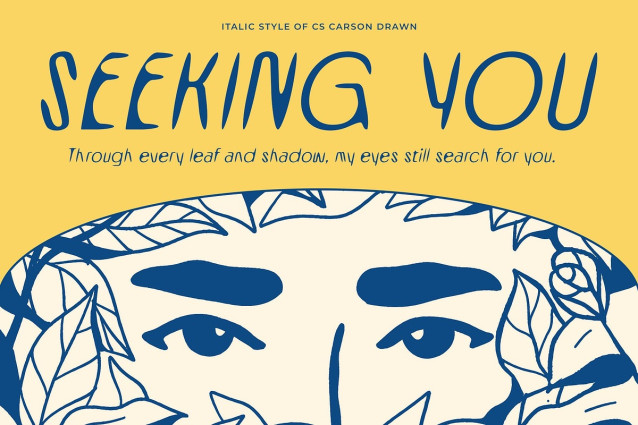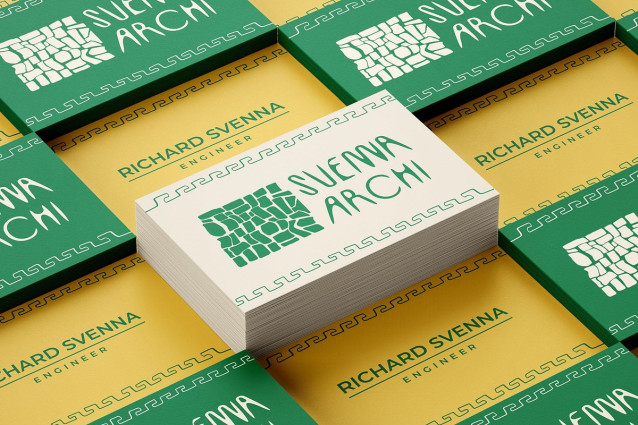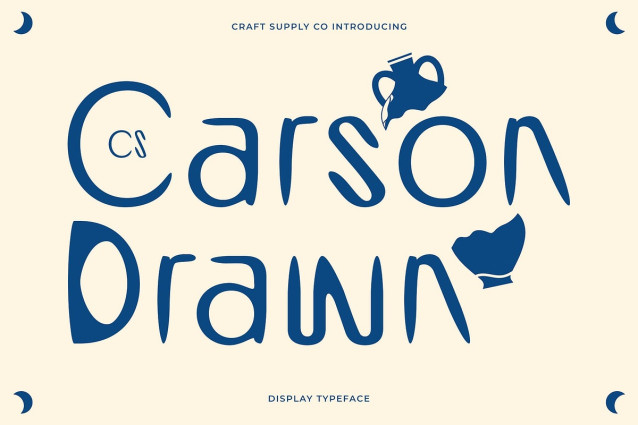
CS Carson Drawn Font
CS Carson Drawn is a modern sans serif display font featuring a monospaced layout, where every character holds equal width. This uniformity creates a neat, structured, and technical feel—perfect for design systems that value clarity, control, and consistency.
Geometric Form for a Clean and Modern Impression Designed with slim, geometric shapes, this font exudes a clean and minimalist aesthetic. The sharp angles and balanced proportions make it ideal for modern digital visuals, aligning seamlessly with futuristic and tech-inspired themes.
Drawn Effect for Organic Contrast What sets this clean font apart is its hand-drawn texture, which softens the rigidity of its monospaced geometry. This rough, handcrafted layer introduces an expressive, artistic quality that gives the font warmth and character—creating a unique harmony between structure and creativity.
Ideal for Tech, Branding, and Creative Visuals Whether used in alternative branding, creative tech interfaces, or editorial layouts with a modern edge, this artistic font delivers a distinctive identity. It’s a perfect choice for designers seeking a visual blend of technical precision and raw human expression. Perfect for alternative branding, creative tech themes, posters, or editorial layouts, this contemporary font offers a unique typographic voice for projects that aim to be innovative, precise, and full of visual character.